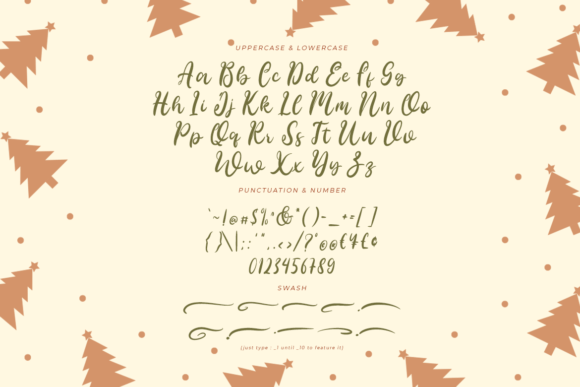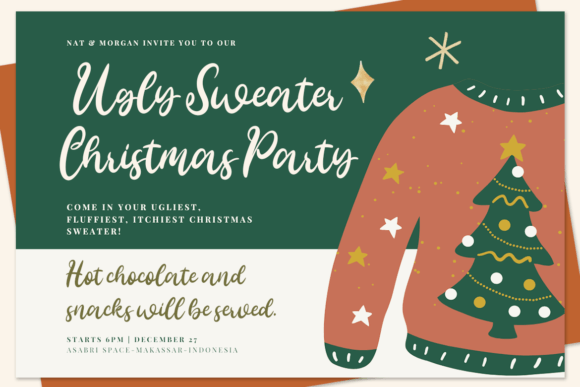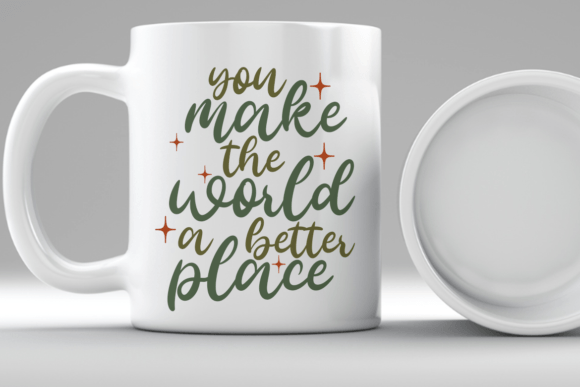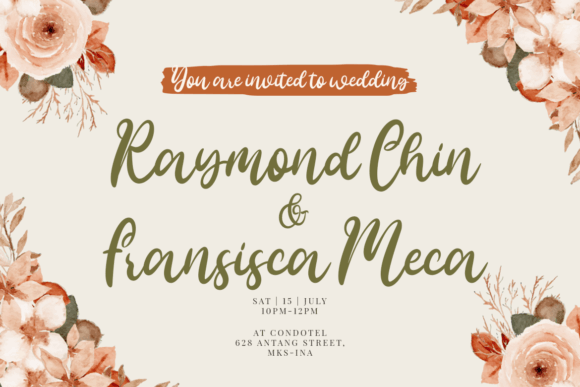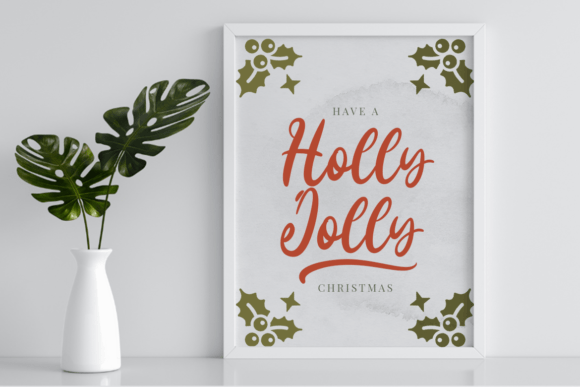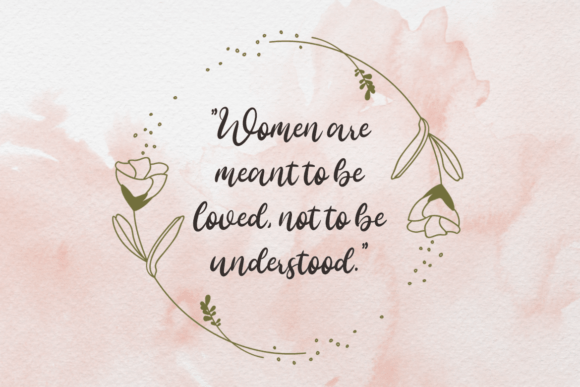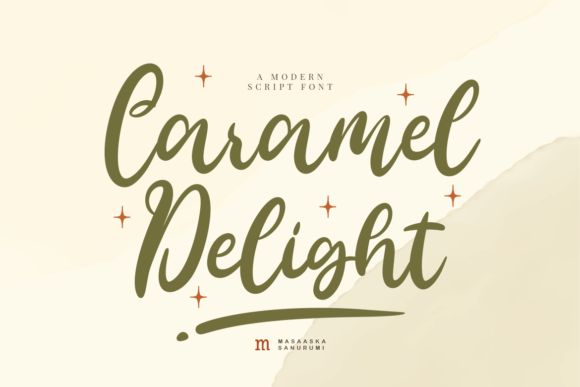
The Caramel Delight Font: A Sweet Addition to Your Design Toolbox
I’ll never forget the time I was working on a DIY project for a client’s wedding invitation. I had the design concept nailed down, but something was missing – the perfect font. I scoured the internet, tried out countless fonts, but none seemed quite right. That was until I stumbled upon the Caramel Delight font. It’s a beautiful, modern script font that added a touch of elegance and sophistication to the entire design. In this article, I’ll share my experience with the Caramel Delight font, its features, and how to make the most of it in your designs.
A Personal Review of Caramel Delight
As a designer, I’m always on the lookout for fonts that can help me create stunning visuals. Here’s my honest review of the Caramel Delight font:
• ✨ Beautifully crafted letters: Each letter in the Caramel Delight font is carefully designed to be both elegant and legible.
• ✅ Versatile: This font is perfect for a wide range of design projects, from Instagram graphics to calligraphy scripts for DIY projects.
• 💫 Modern feel: The Caramel Delight font has a distinctly modern feel that will add a touch of sophistication to any design.
While the Caramel Delight font is an excellent addition to any design toolbox, there are a few things to keep in mind:
• ⚠️ Limited use in body text: Due to its script nature, the Caramel Delight font may not be the best choice for long blocks of body text.
• 🤔 Requires attention to spacing: As with any script font, it’s essential to pay attention to spacing to ensure that the text flows smoothly.
The Story Behind Caramel Delight
The Caramel Delight font was designed by a team of typographers who wanted to create a beautiful, modern script font that would add a touch of elegance to any design. Inspired by the smooth, rich texture of caramel, the font features beautifully crafted letters with a distinctly modern feel.
Font Name Caramel Delight Font
Author Masa Aska Sanurumi
Q: What is the Caramel Delight font?
A: The Caramel Delight font is a beautiful, modern script font designed for use in a wide range of creative projects.
Q: Is the Caramel Delight font suitable for body text?
A: While the Caramel Delight font is an excellent choice for headings and titles, it may not be the best choice for long blocks of body text due to its script nature.